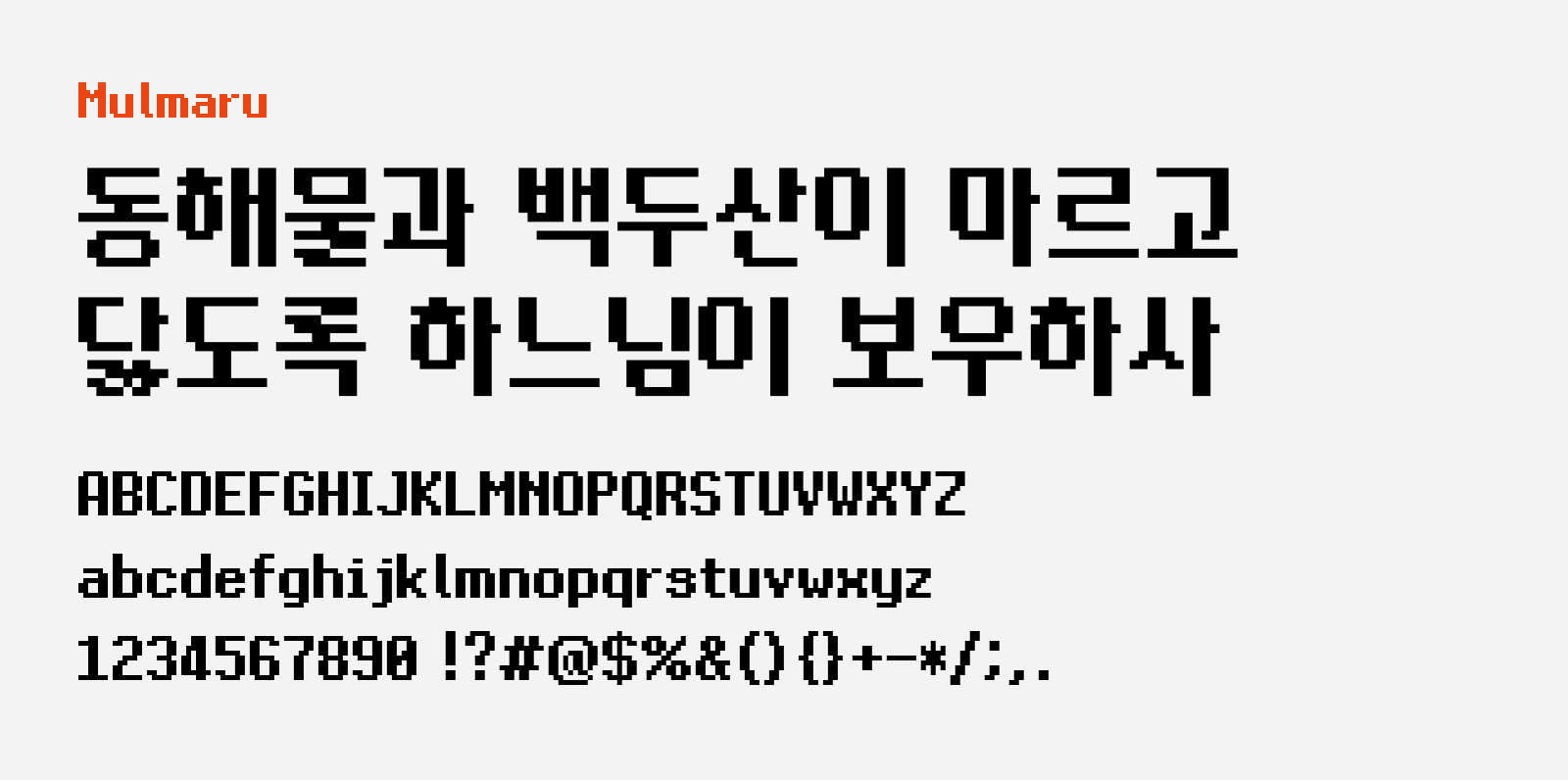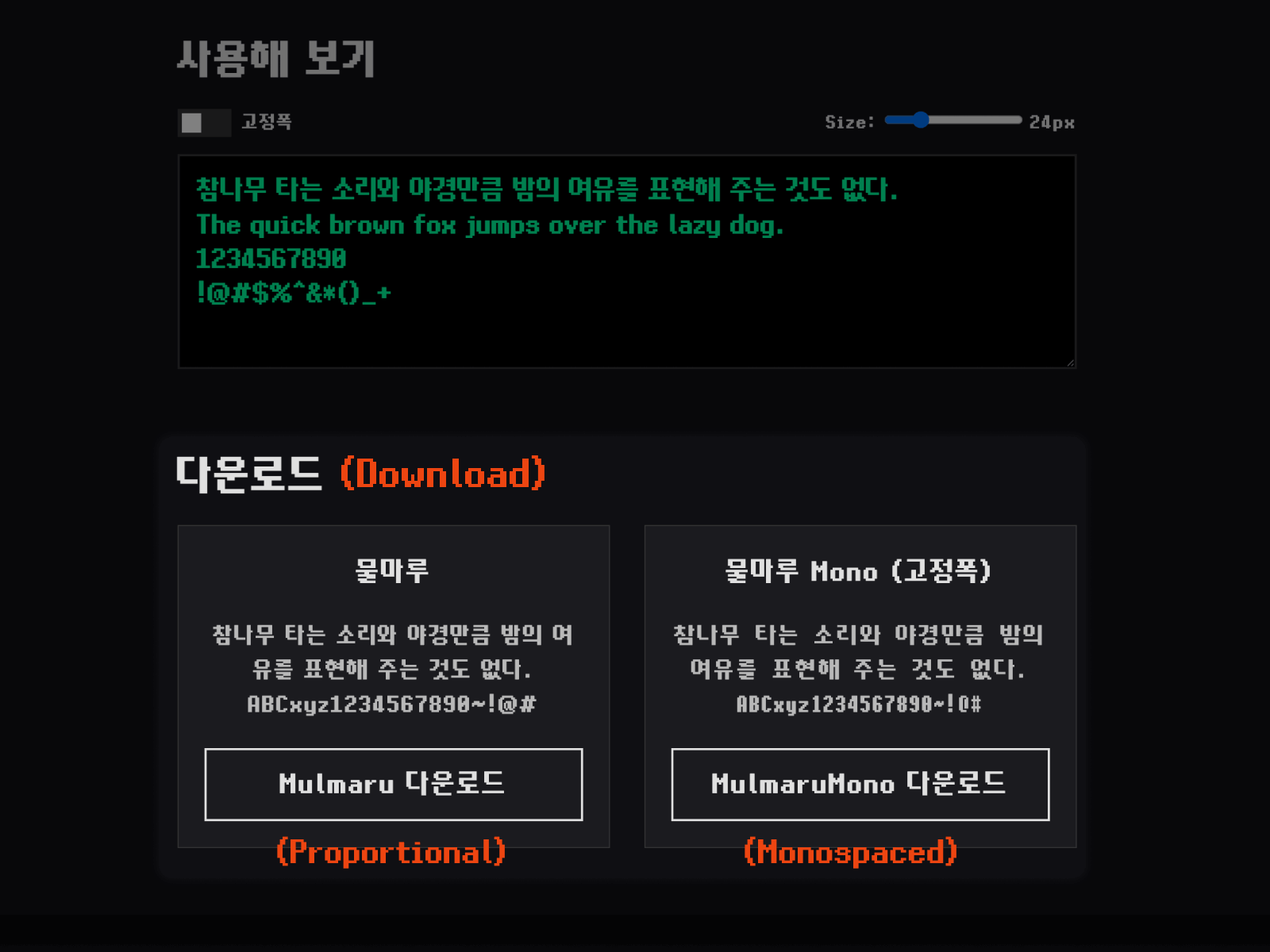
Mulmaru
Mulmaru (물마루) is a bold yet smooth looking pixel style free Korean font. It was created from the need for better typography in Korean pixel game localization. According to the author mushsooni, he struggled to find a suitable fonts out there when translating games to Korean. Hence, with the references from the existing pixel fonts, he created Malmaru. Malmaru was rendered best at 12px (or 9pt), featuring thick vertical strokes and rounded edges, making it a comfortably readable font set in pixel style.
Malmaru comes with proportional and monospaced version and it supports Korean, Latin, Cyrillic and even Japanese Kana characters, totaling 11,937 characters. It was released under SIL Open Font License (version 1.1), therefore you can download this font for free and use it on both commercial and non-commercial projects, and you can also embed, modify and redistribute this font under this license.